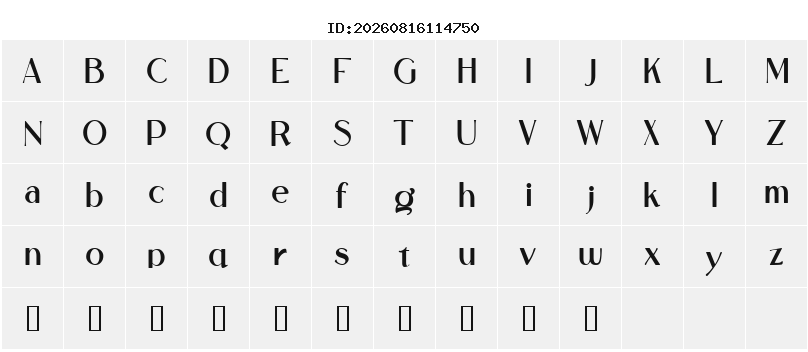
Stalk Preview
• Font Name: Stalk
• Full Font Name: Stalk Bold
About Stalk.ttf
Stalk.ttf is a modern, elegant sans-serif font designed for ultimate readability and visual harmony. Perfect for branding, headlines, web design, and print materials.